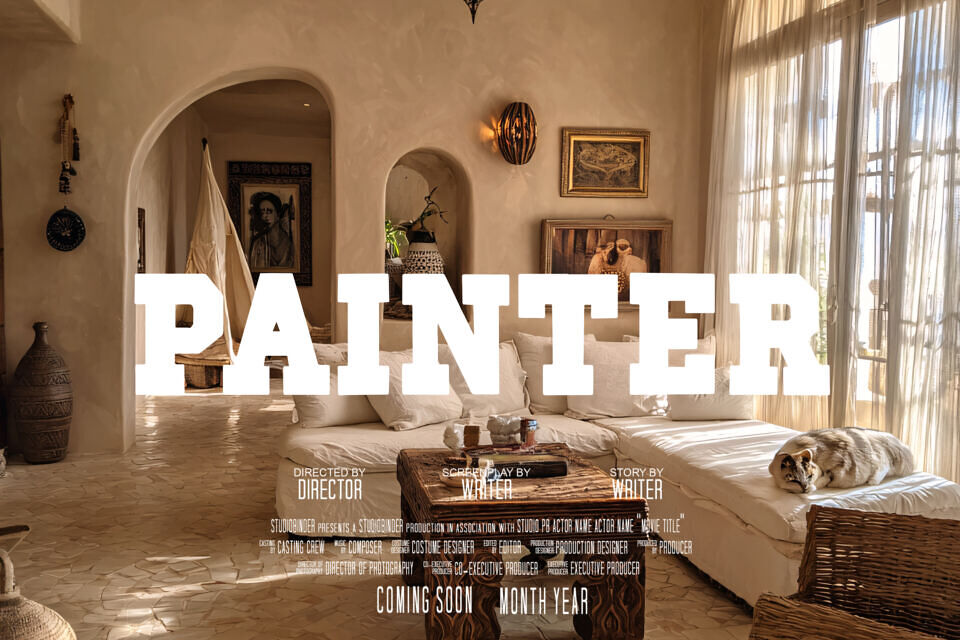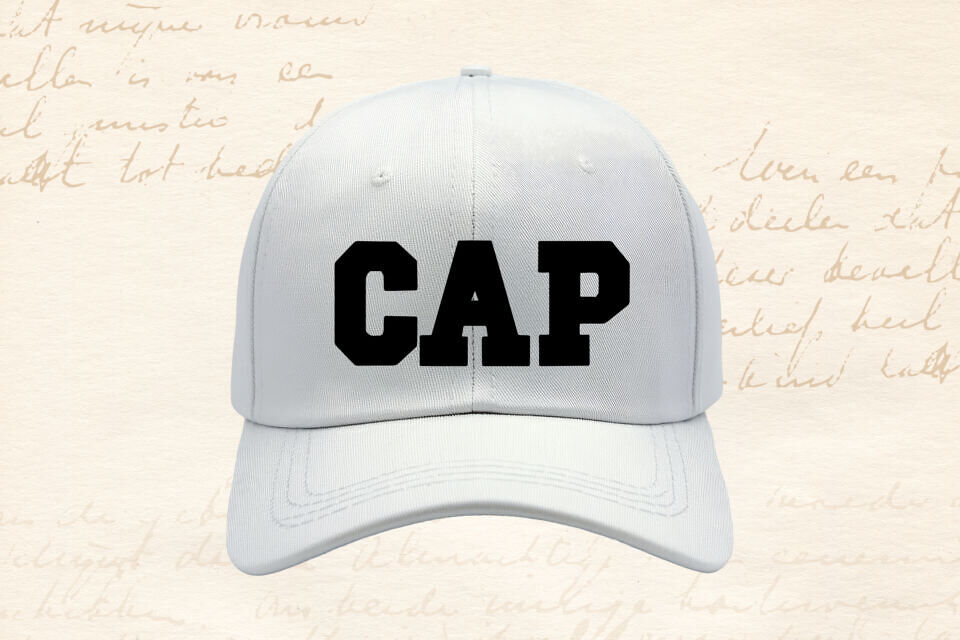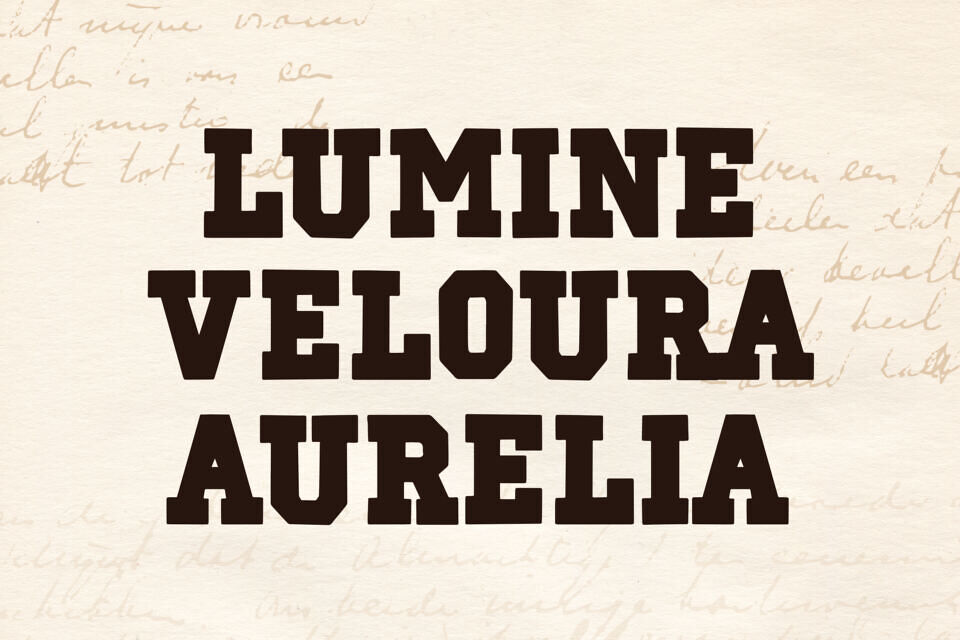
Blockton Font
Blockton is a bold block display font built with strong, confident letterforms that demand attention. Its clean geometry and solid weight make it perfect for headlines, logos, and statement designs where clarity matters.
Because the shapes are balanced and sturdy, Blockton stays readable at any size, from small labels to large posters. Use it for branding, packaging, posters, apparel, signage, stickers, and social media graphics. As a result, your designs look powerful, modern, and ready to stand out.